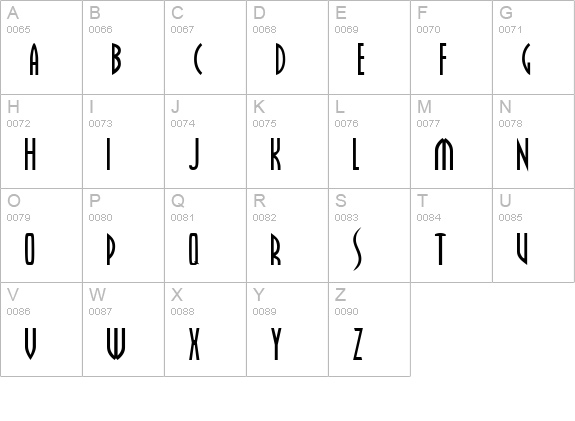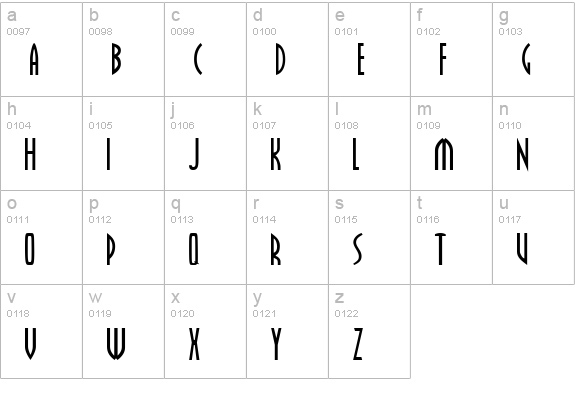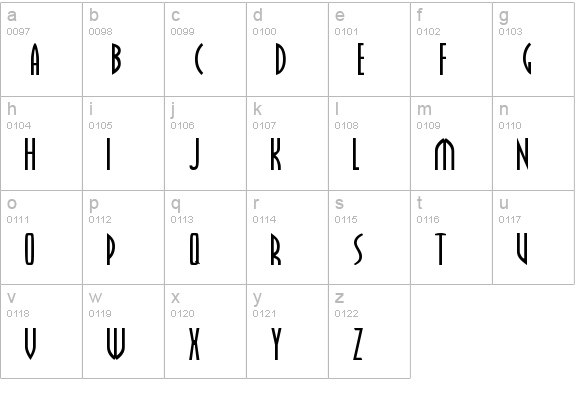
Farscape 1 Font Details
Farscape 1 font is a captivating and unique typeface that combines futuristic elements with a touch of elegance. With its sleek lines and modern design, this font is perfect for a variety of projects, from branding to editorial design. The Farscape 1 font exudes a sense of sophistication and creativity, making it a versatile choice for both digital and print applications. What sets the Farscape 1 font apart is not just its striking appearance, but also the fact that it is available for free download at FontsMarket.com. This means that you can easily access this stylish font and use it in your projects without any cost involved. Whether you are a professional designer or a creative enthusiast, Farscape 1 font offers you the opportunity to elevate your work with its contemporary aesthetic and visual impact. Download the Farscape 1 font today from FontsMarket.com and unleash your creativity with this modern and free typeface that will surely make a statement in your designs.